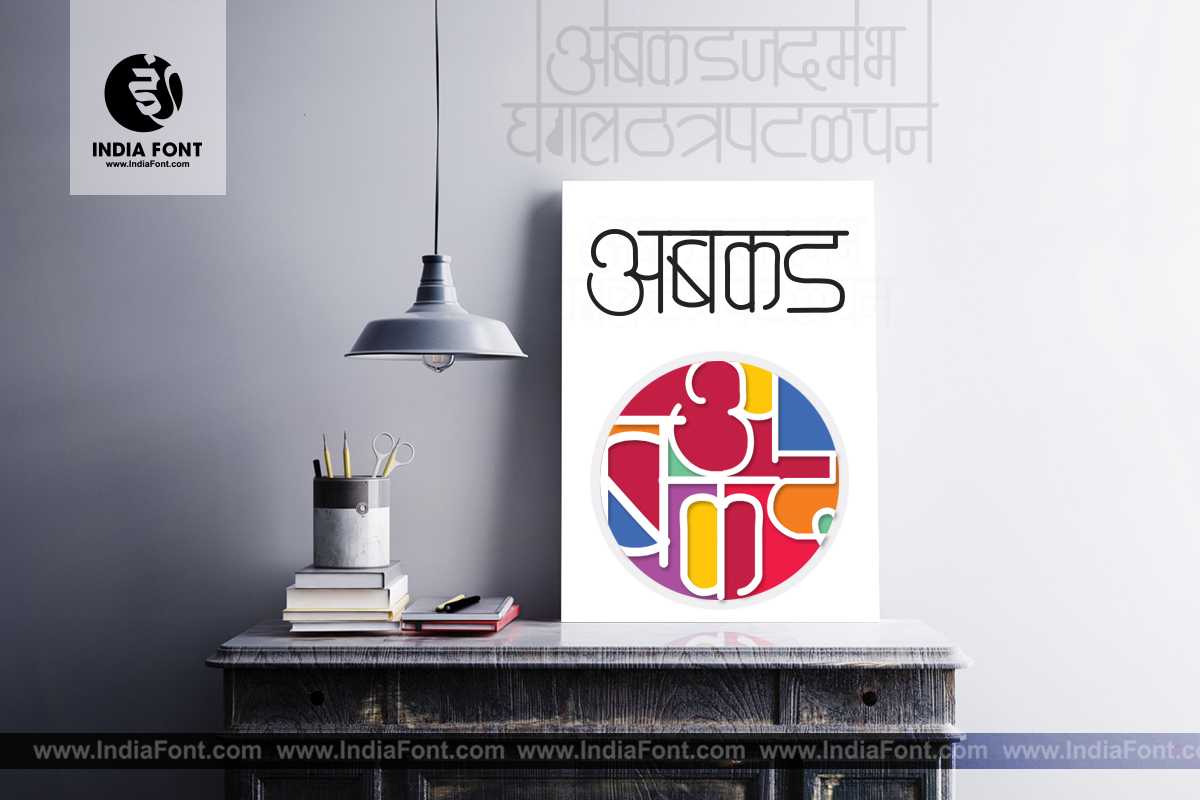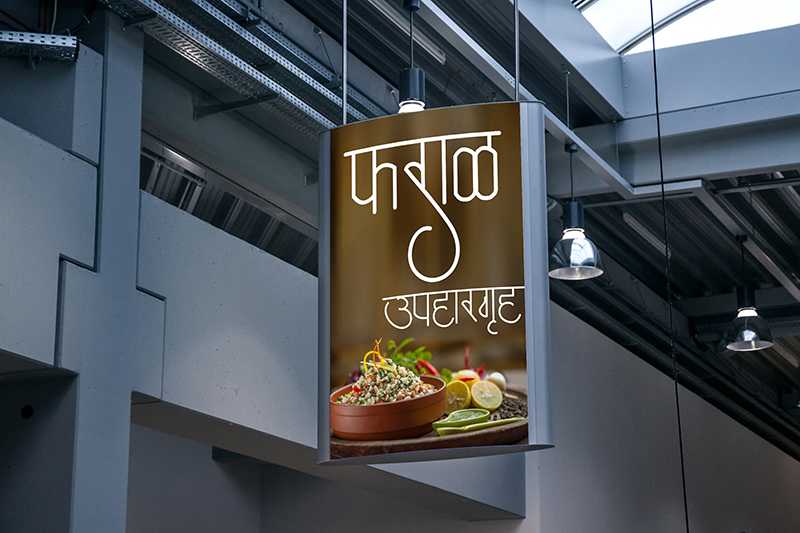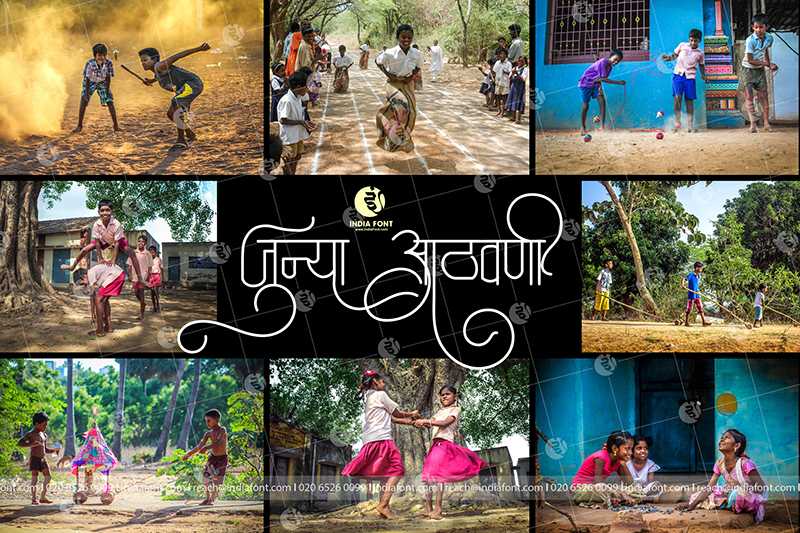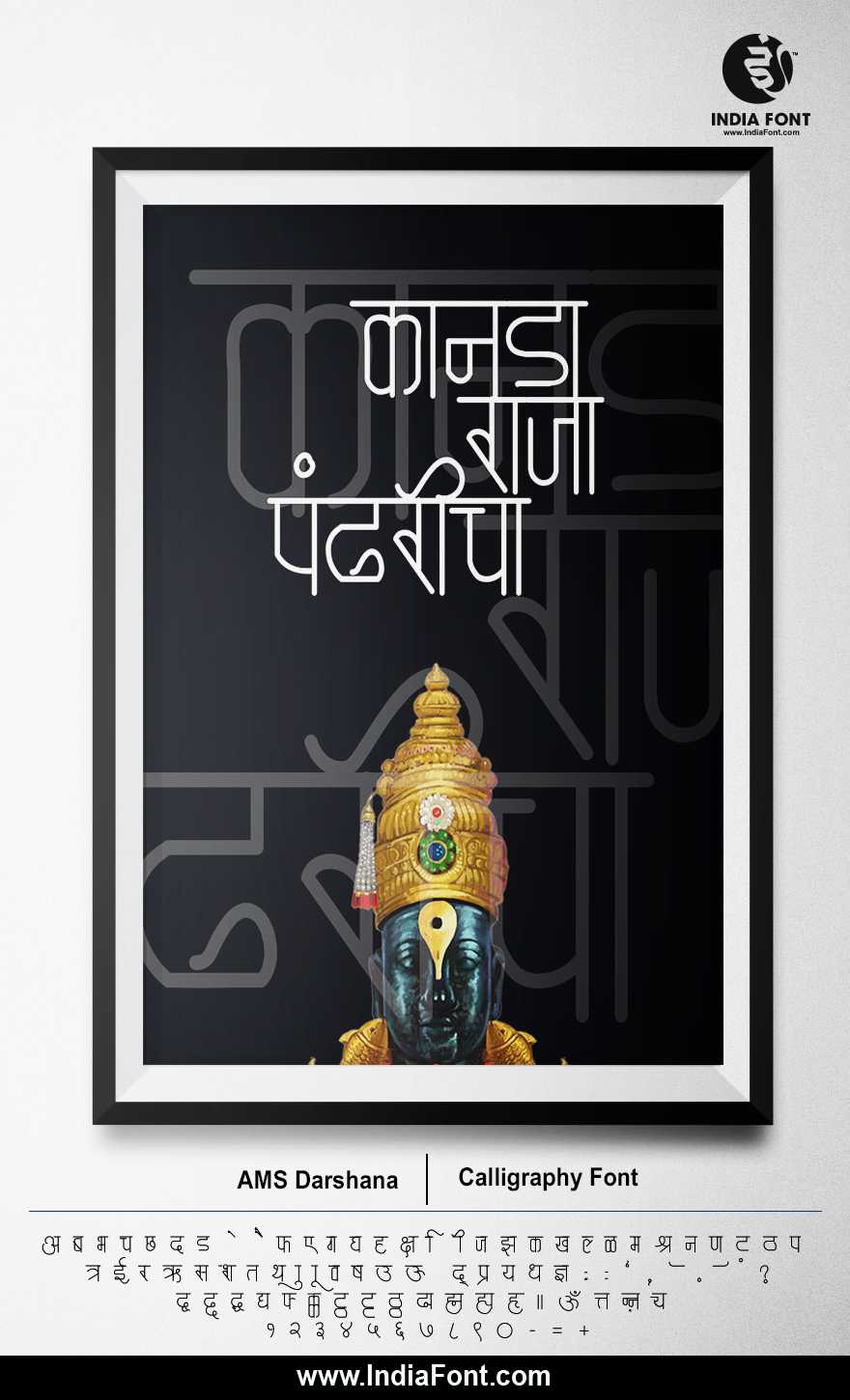
AMS Darshana
Embark on a journey of elegance and beauty with AMS Darshana, a Hindi and Marathi calligraphy font. With its graceful curves and expressive letterforms, AMS Darshana captures the essence of sophistication.
AMS Darshana Design Inspiration
Explore how AMS Darshana looks in real-world applications and get inspired for your next project
About AMS Darshana Font
Embark on a journey of elegance and beauty with AMS Darshana, a Hindi and Marathi calligraphy font. With its graceful curves and expressive letterforms, AMS Darshana captures the essence of sophistication. This calligraphy font combines elegance with functionality, making it perfect for various design applications.
AMS Darshana is a professionally crafted calligraphy typeface that brings clarity and style to your projects. Designed with attention to detail, it supports hindi and marathi characters flawlessly.
Whether you're working on headers-titles, posters, magazines-newspapers, or other creative projects, AMS Darshana delivers consistent performance across both digital and print media. This carefully designed typeface ensures readability and visual appeal in all your design work.
Why Choose AMS Darshana?
AMS Darshana excels in various design scenarios. Here are the most suitable applications:
About AMS Darshana Typography Style
AMS Darshana is a professionally crafted calligraphy font that exemplifies modern Hindi typography design. This free font is perfect for designers seeking impactful poster and display applications.
Available in 1 weight and supporting hindi, marathi scripts, AMS Darshana offers exceptional versatility for both digital and print media. Whether you're working on headers-titles, posters, magazines-newspapers, this carefully designed typeface ensures consistent quality and professional results across all your typography projects.